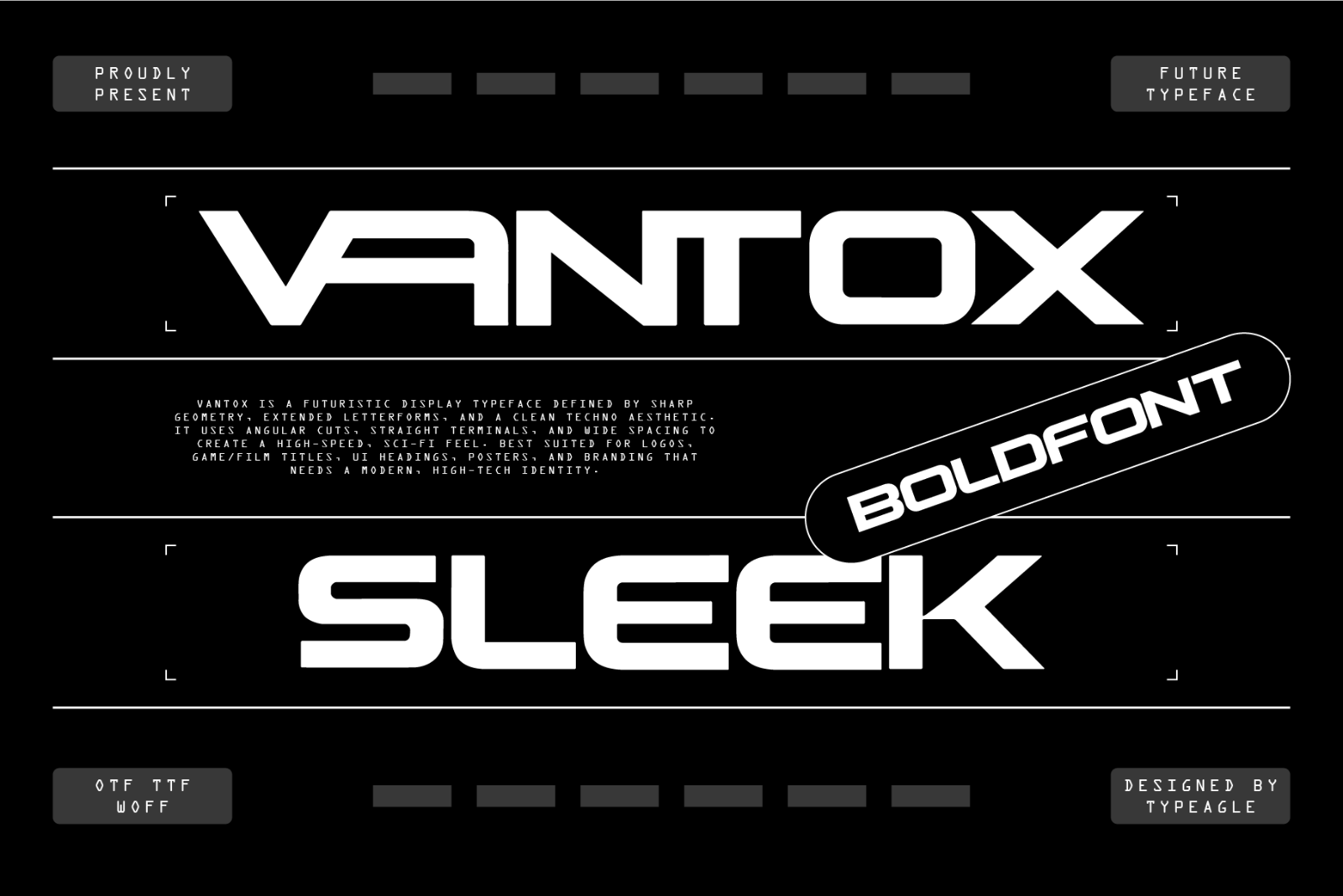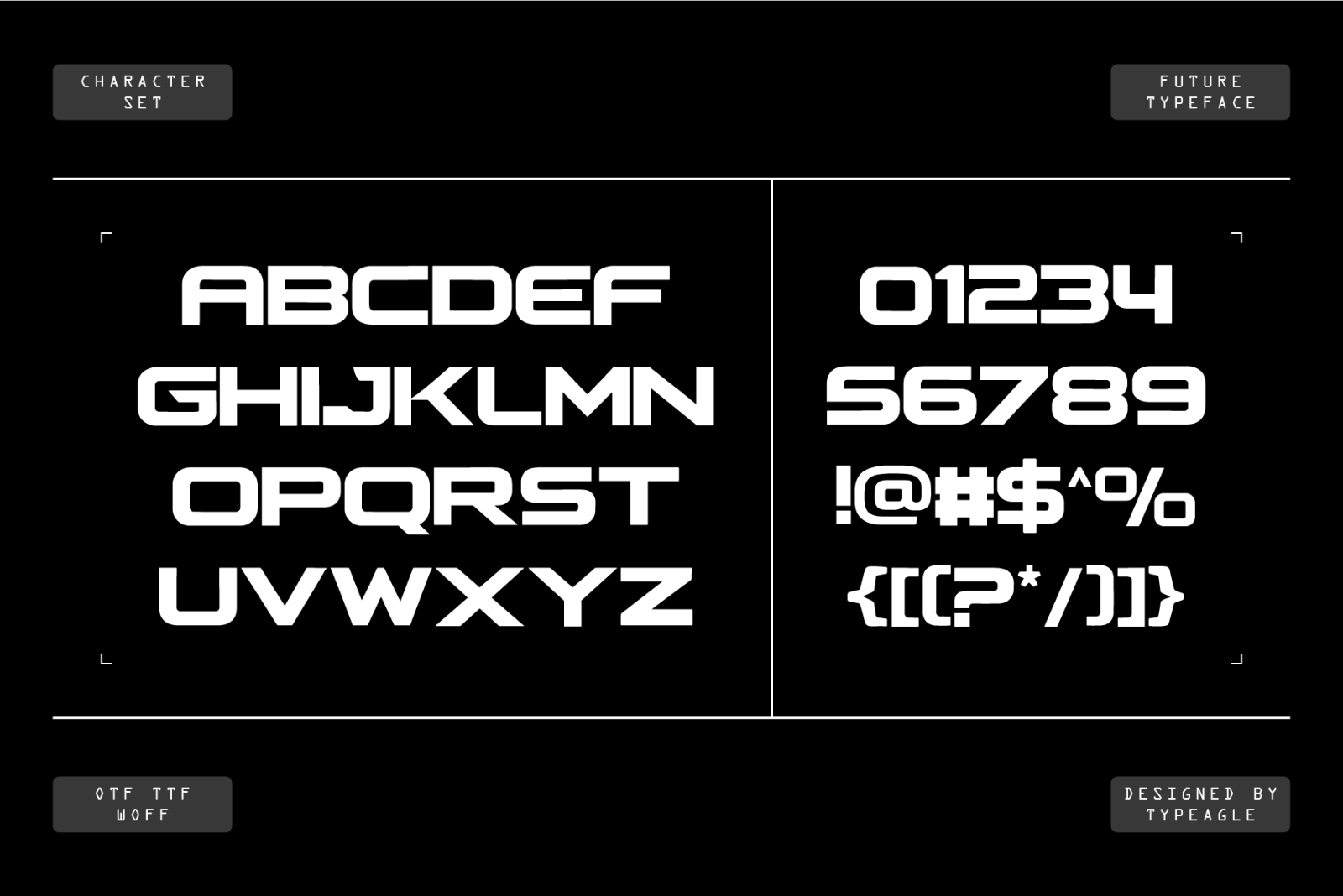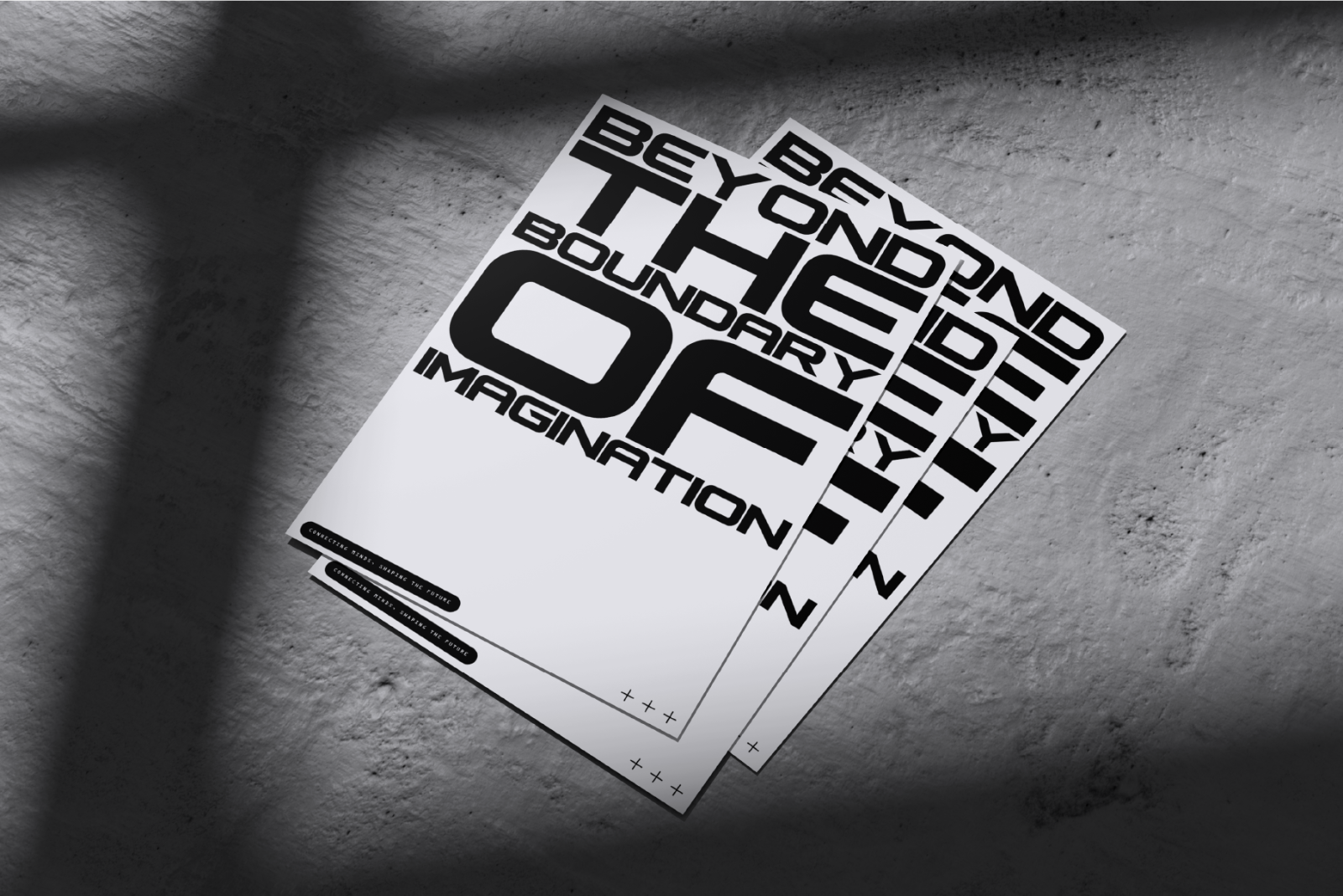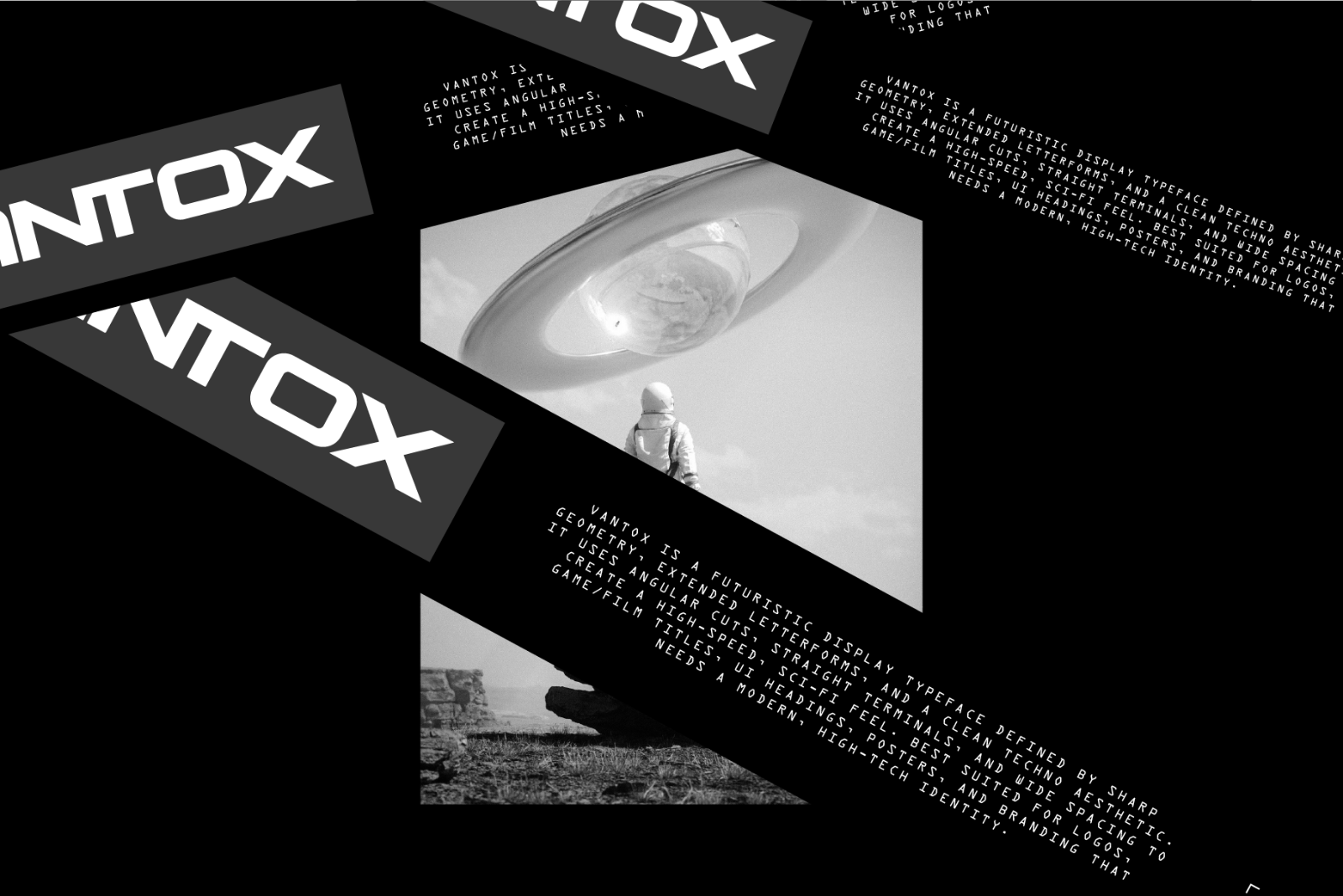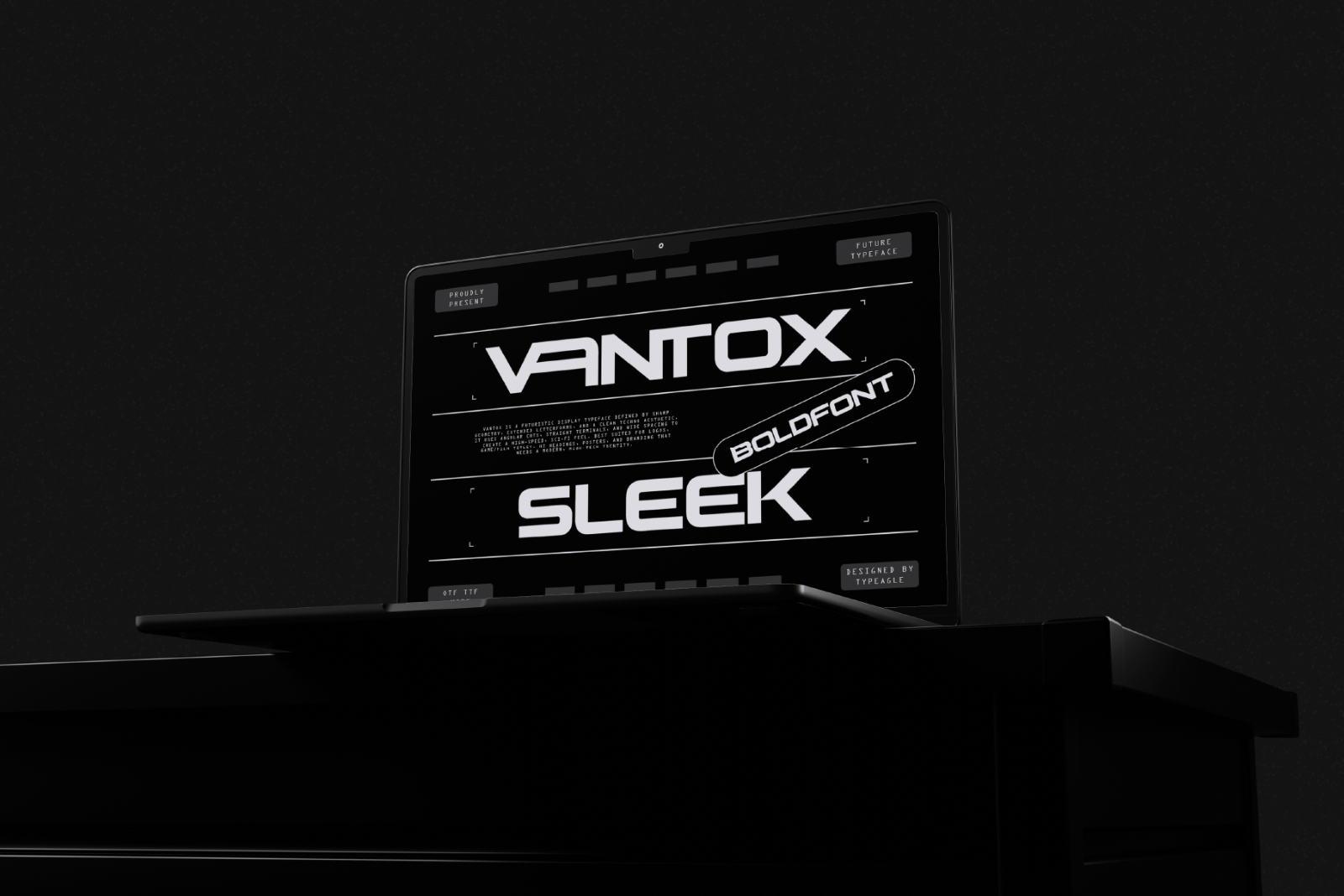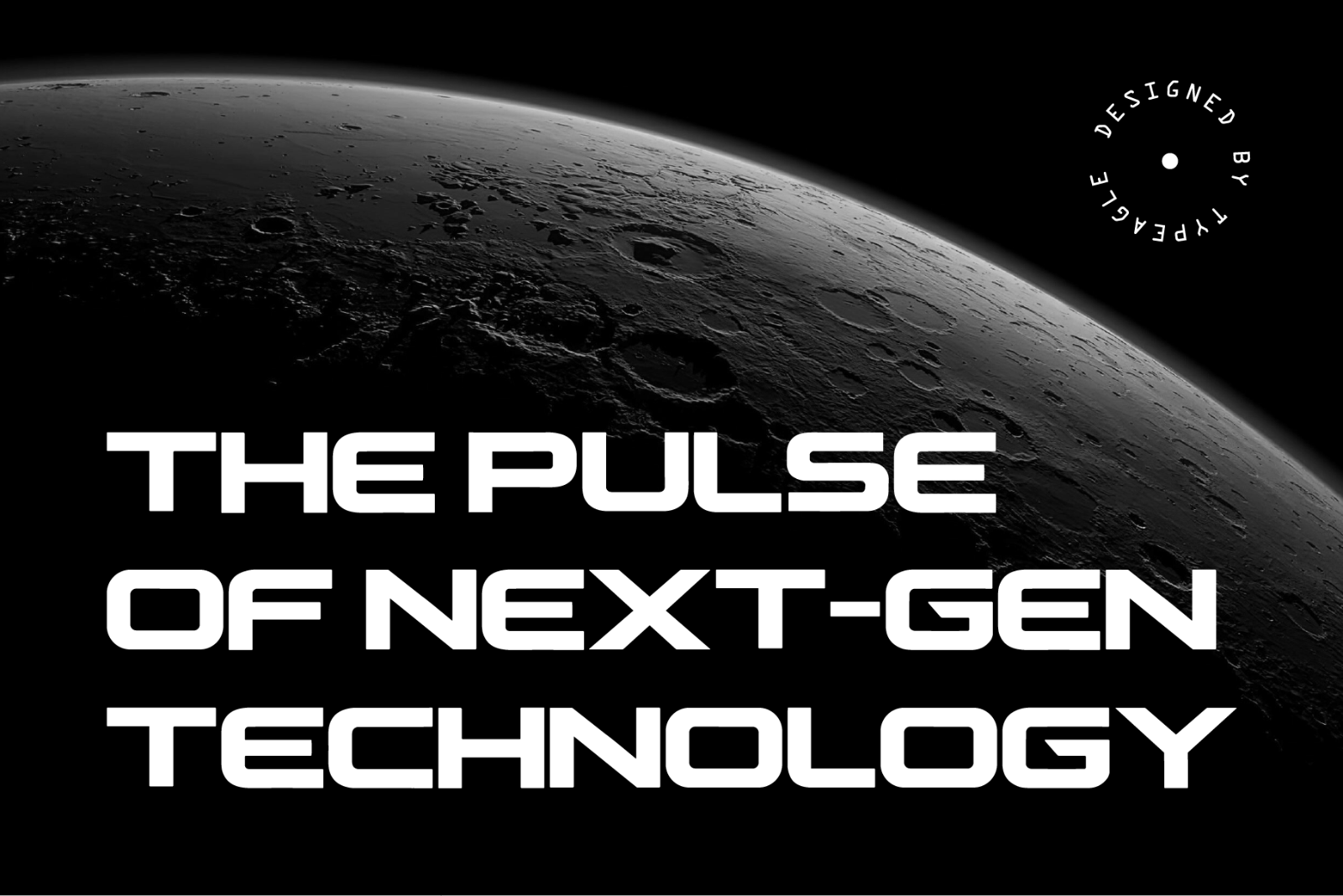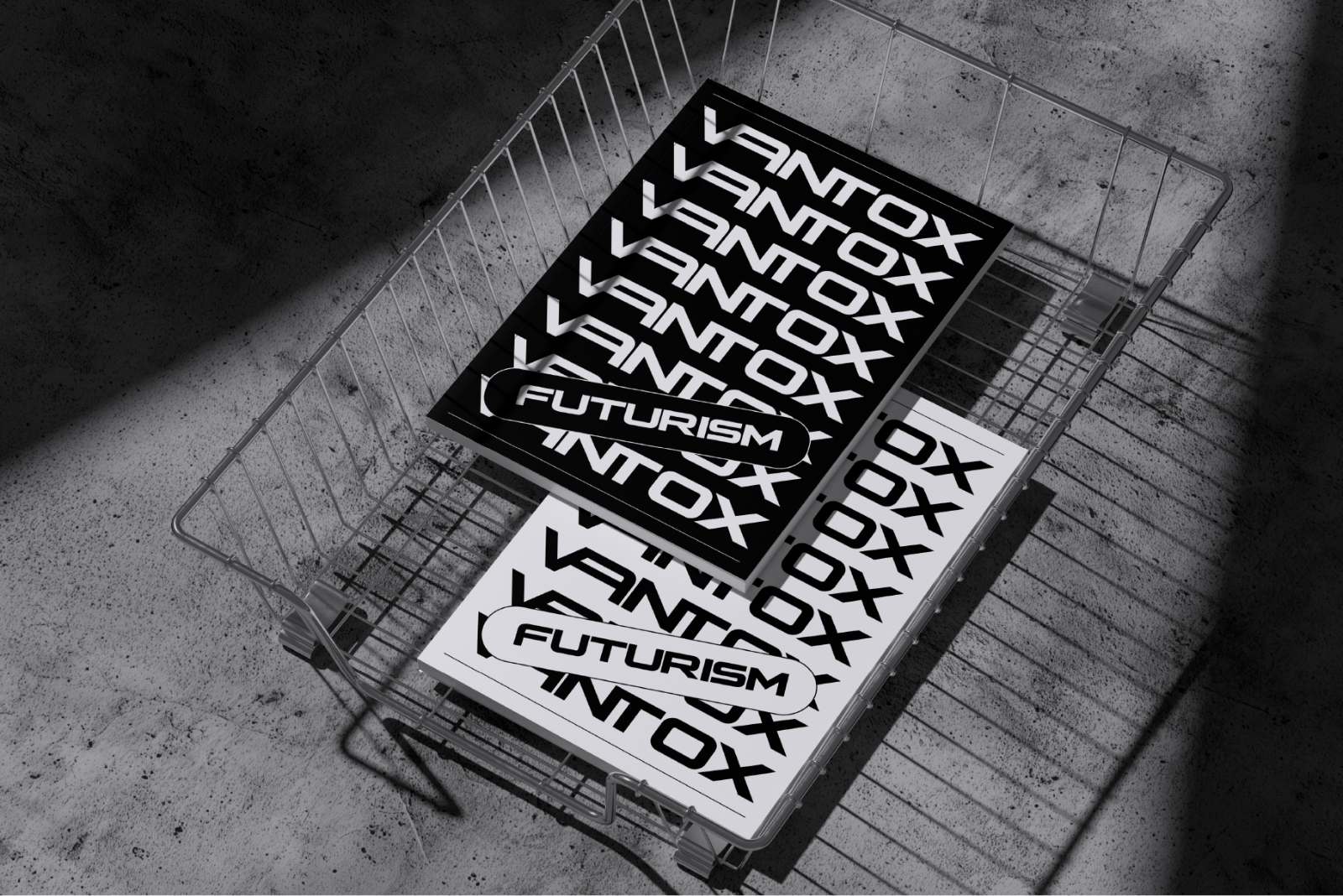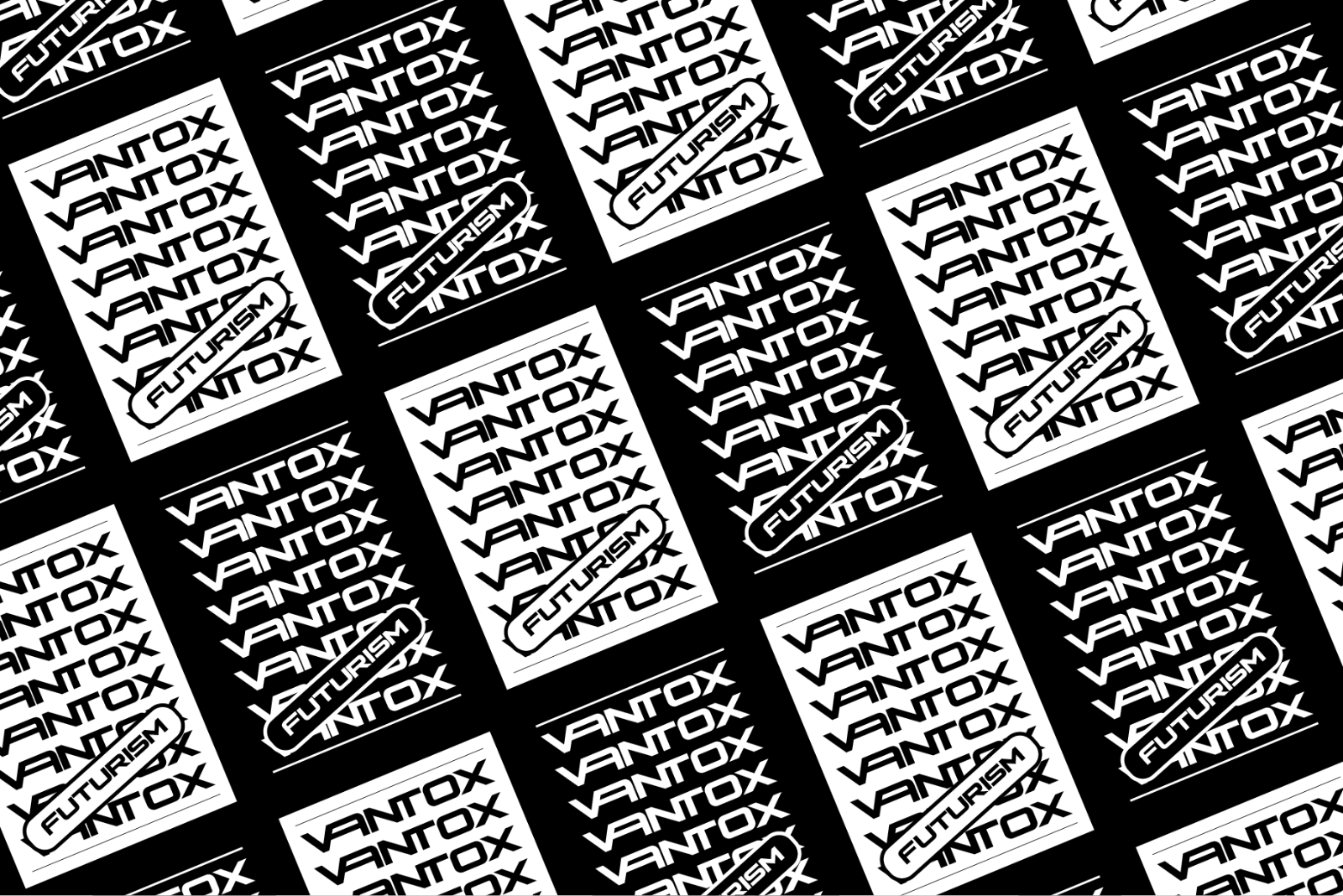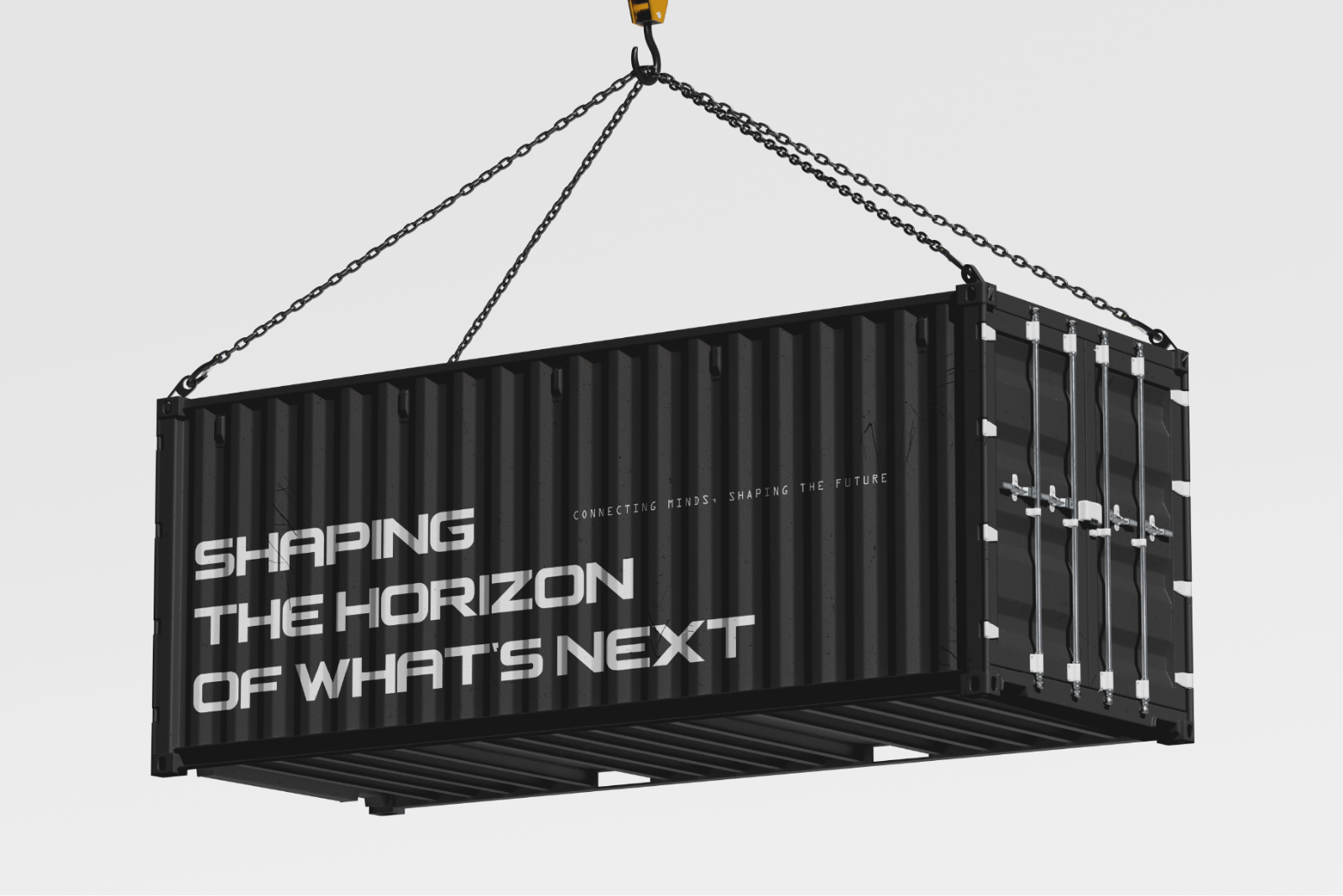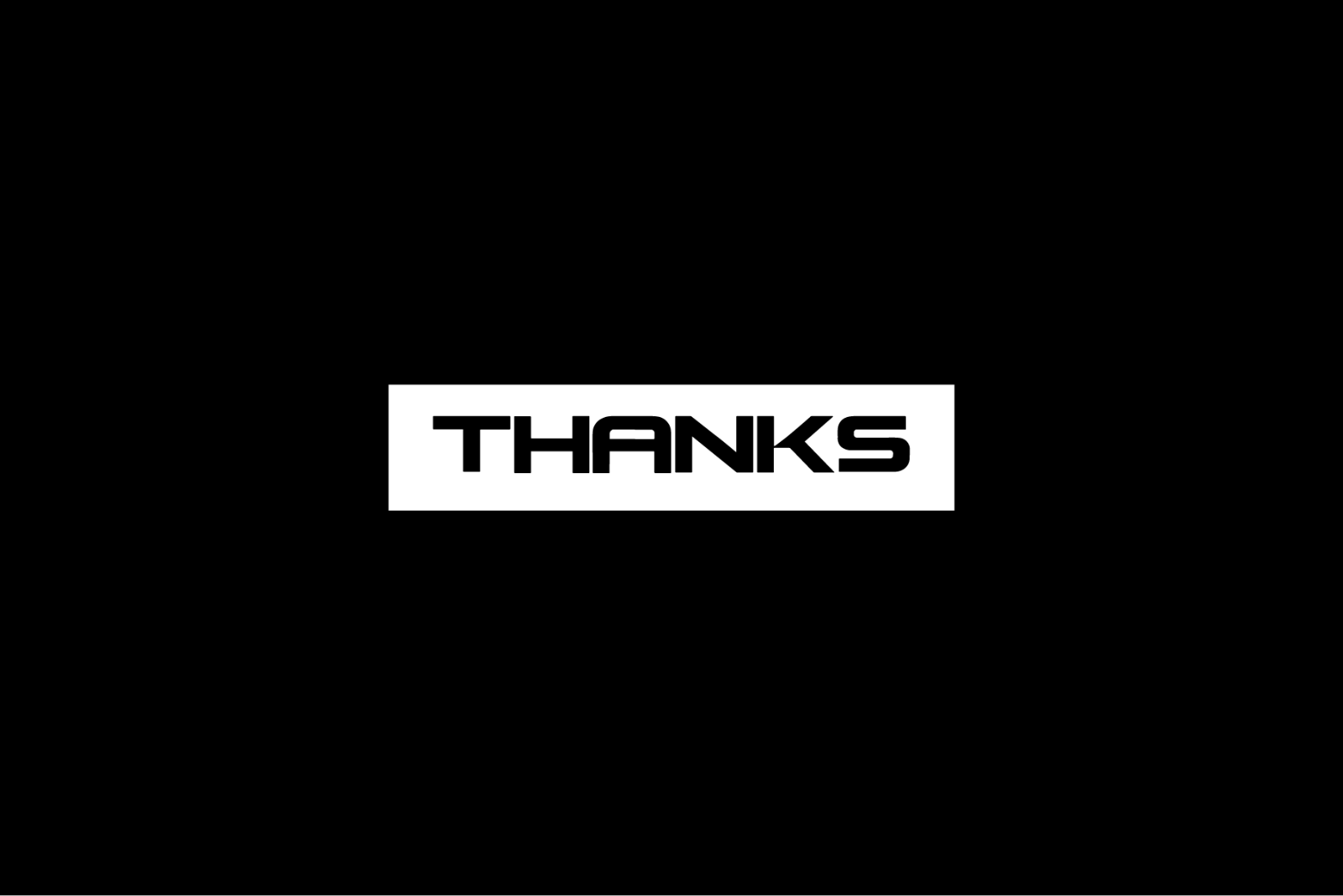
Vantox is a futuristic display typeface defined by sharp geometry, extended letterforms, and a clean techno aesthetic. It uses angular cuts, straight terminals, and wide spacing to create a high-speed, sci-fi feel. Best suited for logos, game/film titles, UI headings, posters, and branding that needs a modern, high-tech identity.